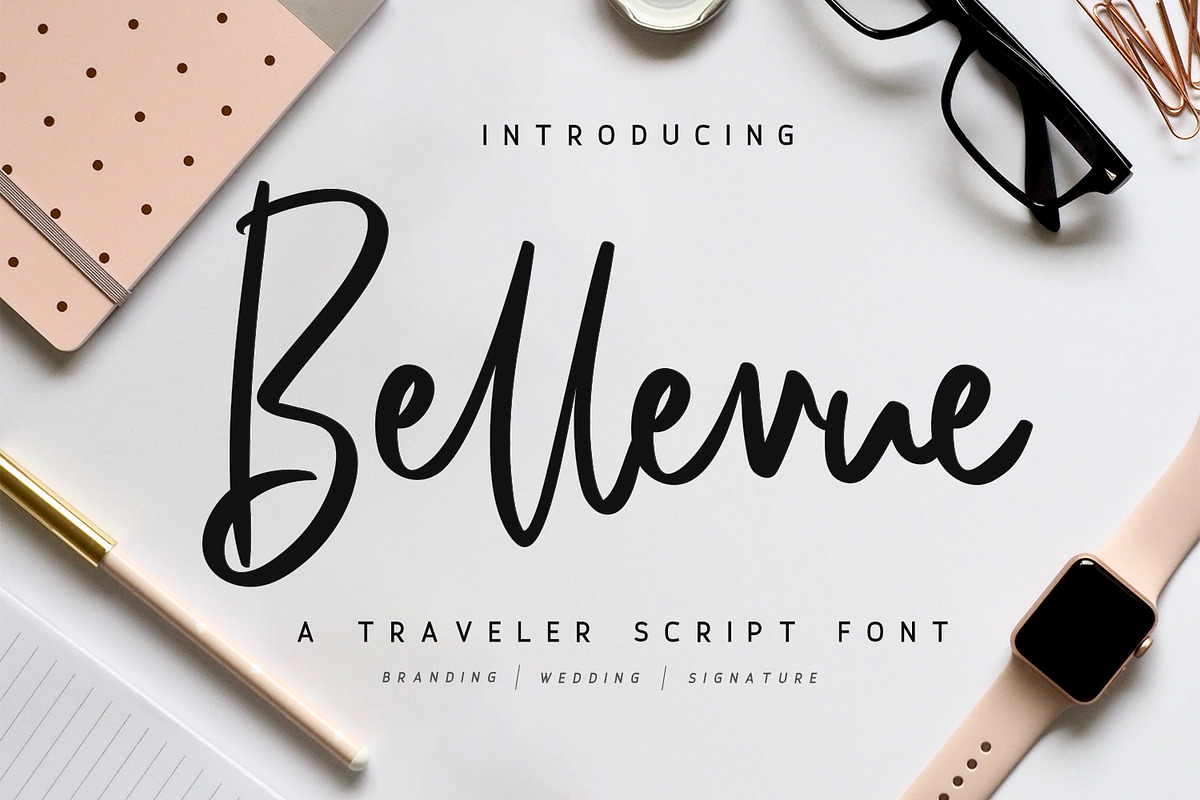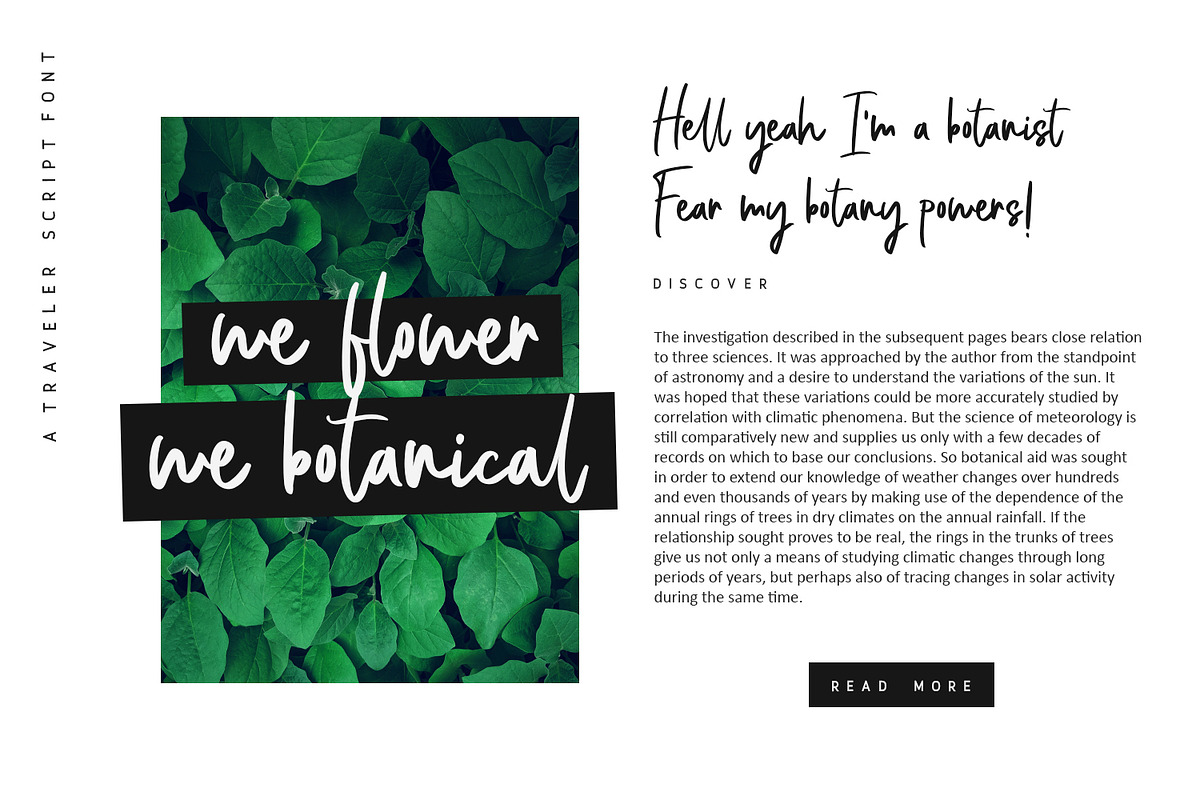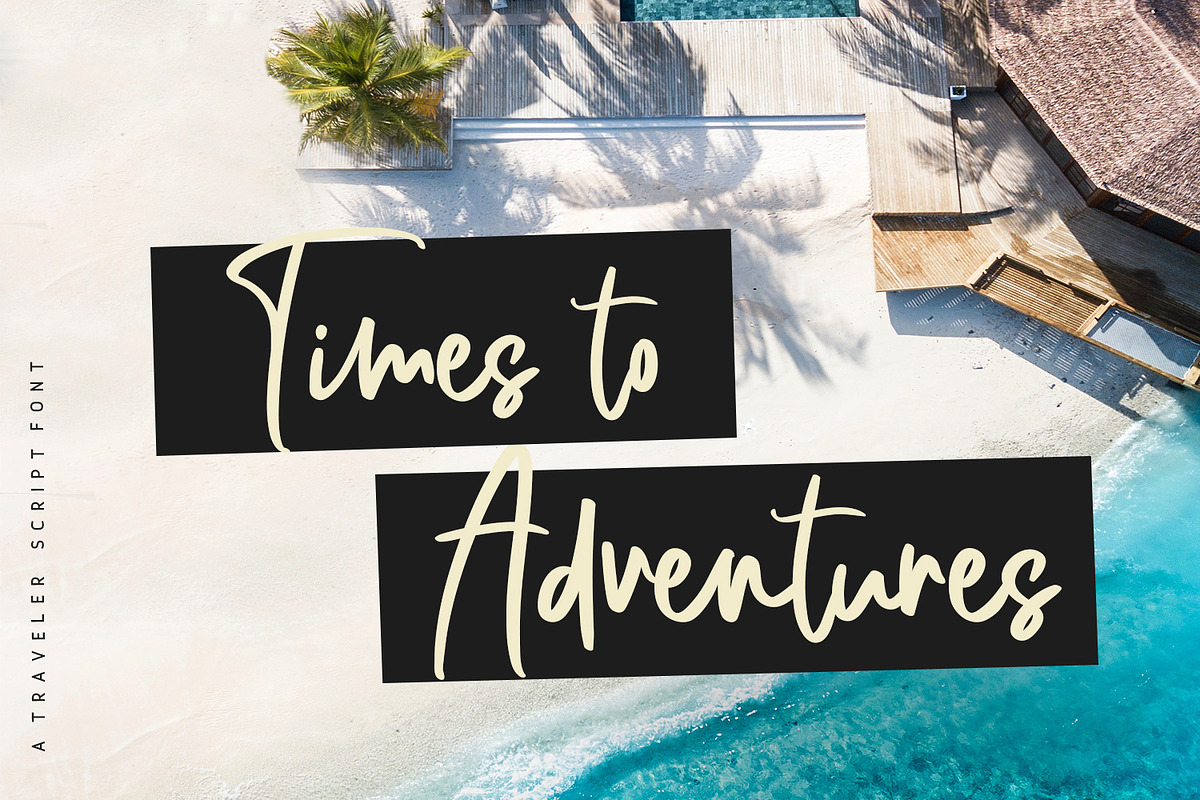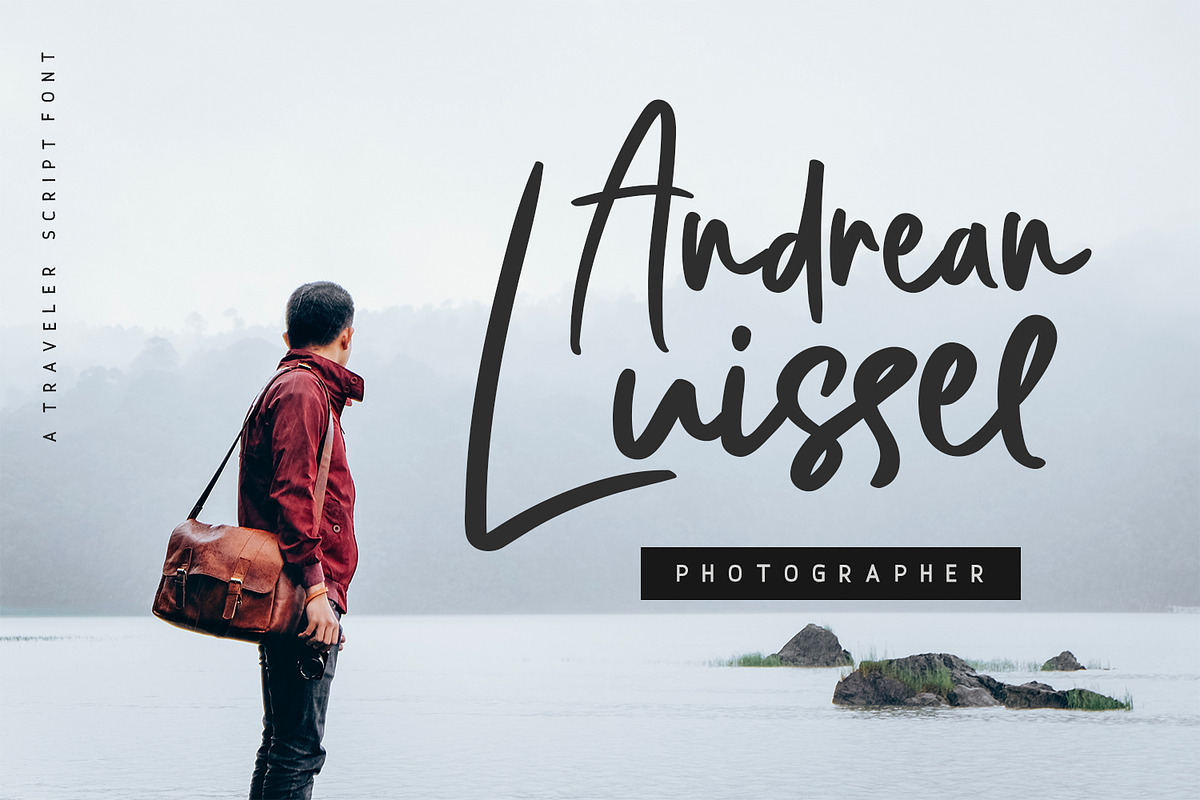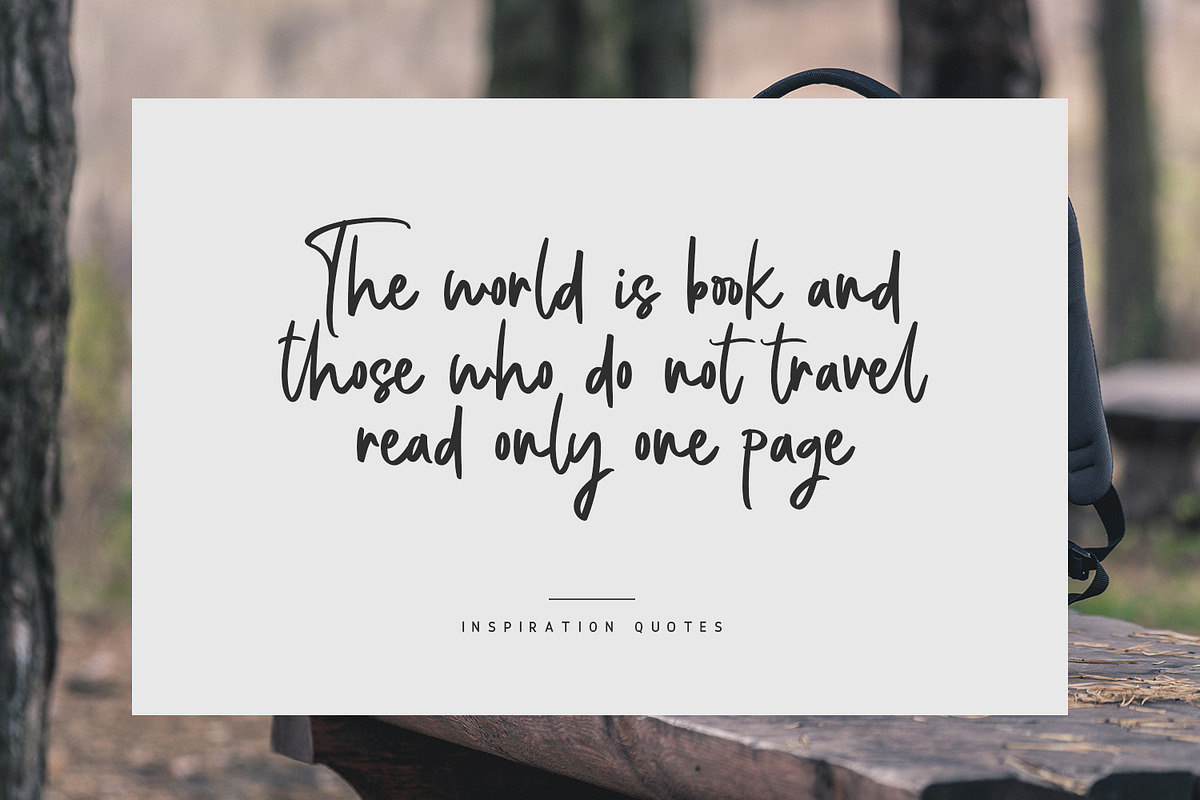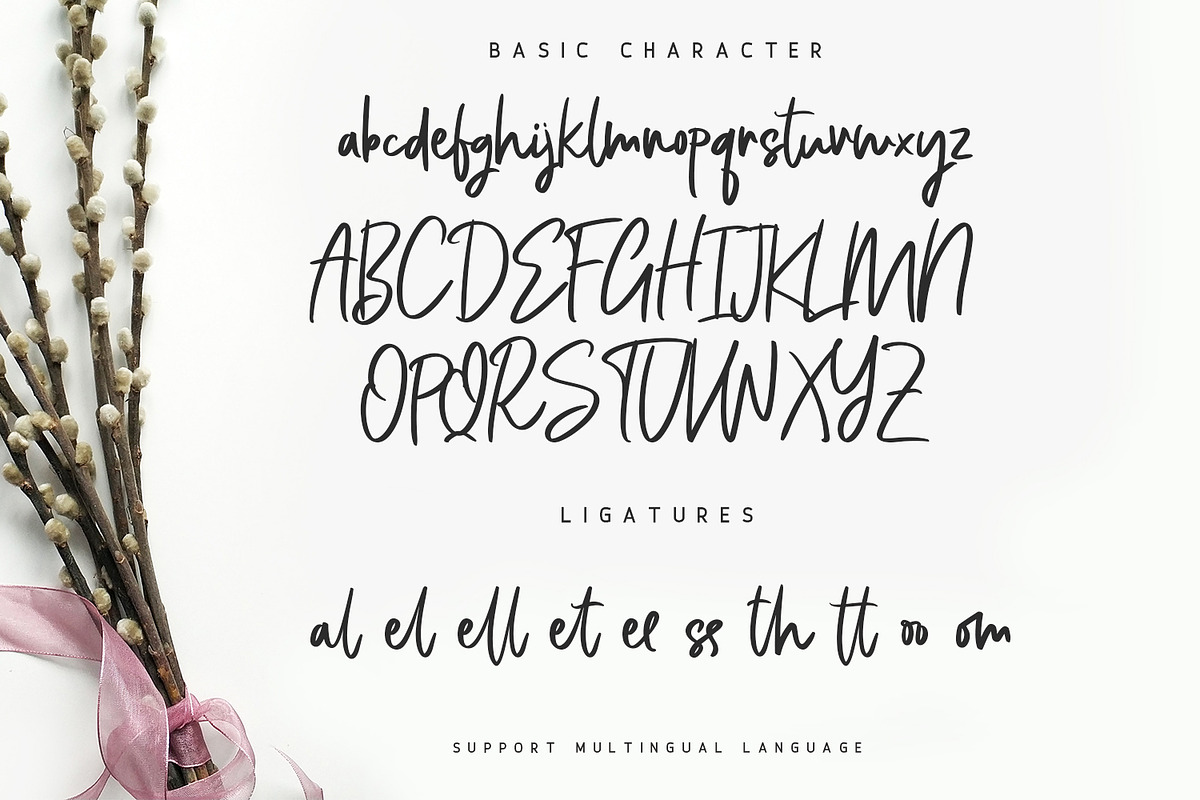
Bellevue // A Traveler Script Font
Bellevue - A Handwritting script and unique character! it's perfect for logos, name card, magazine layouts, invitations, headers, or even large-scale artwork.